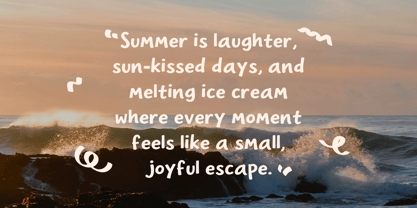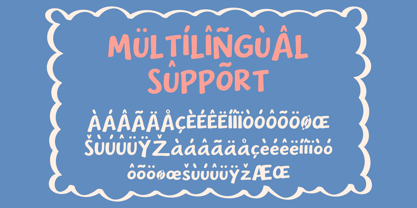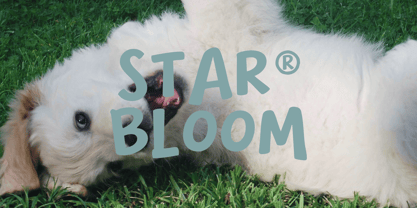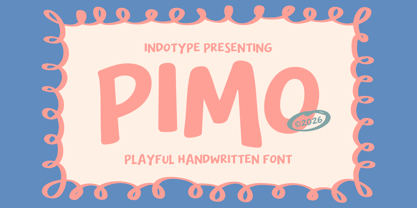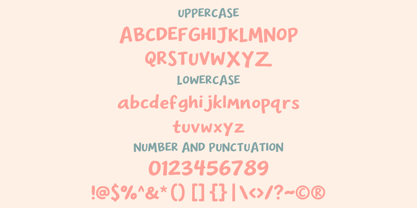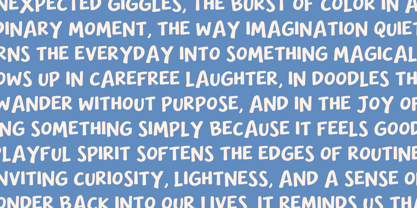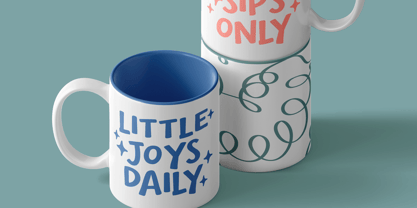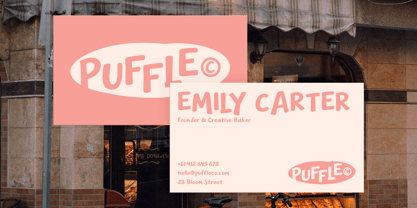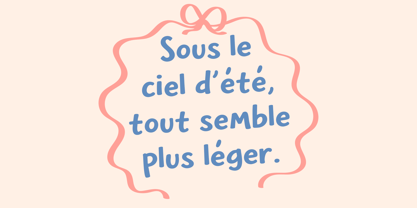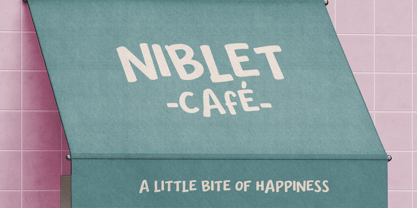
IT Pimo
by Indotype
The IT Pimo Font Family was designed by Dede Kurniawan and published by Indotype. IT Pimo contains 1 styles. More about this family
Pimo is a playful handwritten display font overflowing with joy, innocence, and creative energy. Designed by Indotype, Pimo captures the uninhibited spirit of a child's best handwriting — the kind written with a thick marker on a good day, when every letter feels like a small celebration. With its chunky, rounded uprights and charmingly imperfect character-to-character variation, Pimo brings an immediate sense of warmth and approachability to any design it touches. This is a typeface that smiles back at you. Design Characteristics Pimo is built on a foundation of bold, upright letterforms with generous stroke widths and softly rounded terminals that give the font its signature plush, tactile quality. Unlike polished geometric sans-serifs, Pimo deliberately embraces the subtle irregularities of genuine hand-lettering — slight variations in stroke weight, minor shifts in letter height, and organic curves that no mechanical construction could replicate. These qualities are not imperfections; they are the soul of the typeface, the evidence of a human hand at work. The all-caps display design gives Pimo a consistent visual density that works beautifully in headline and logotype settings, while the mixed-height letterforms and rounded shapes prevent it from ever feeling heavy or imposing. The open counters — particularly visible in the large O in the showcase — ensure strong legibility at display sizes, allowing the typeface to scale generously without losing its cheerful clarity. The font's decorative sensibility is perfectly echoed in its showcase design: a hand-drawn looping border of curls and teardrop motifs frames the composition with the same playful energy that runs through every glyph. Pimo doesn't just exist within a design — it generates an entire visual world around itself, one defined by warmth, creativity, and the particular joy of making something by hand.
Designers: Dede Kurniawan
Current Foundry: Indotype